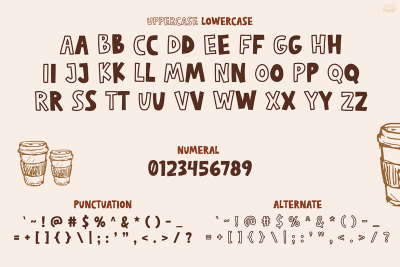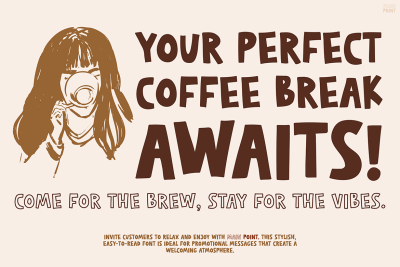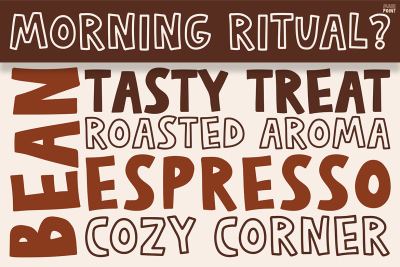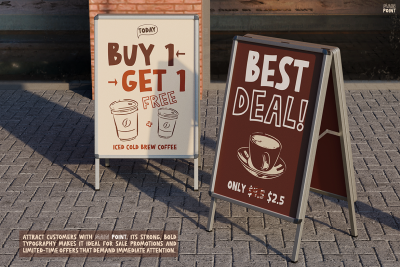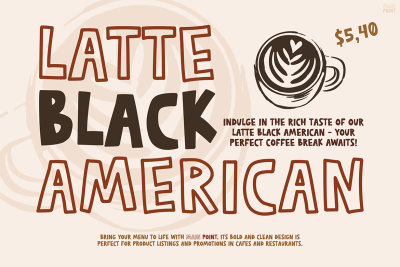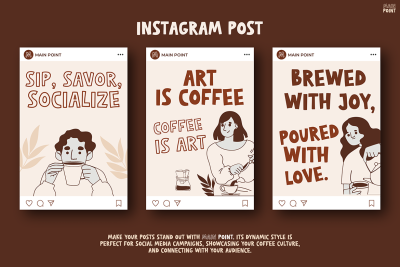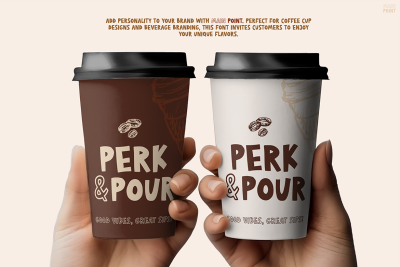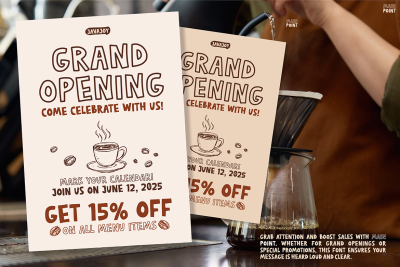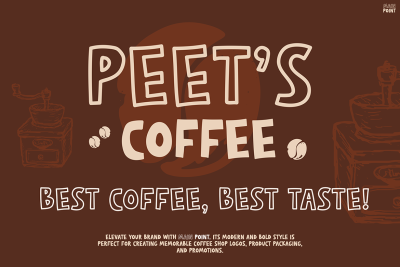
Cute Font Main Point is a playful, bold typeface full of charm. With its hand-drawn style and round shapes, it brings a cozy, inviting look. As a result, itโs perfect for brands that want to feel warm, friendly, and expressive. Whether you’re designing for social media or printed promos, this font grabs attention right away. Moreover, its unique style stands out while remaining easy to read. The variation in line thickness adds movement and personality to every word. Therefore, it turns simple messages into engaging, memorable content. In short, itโs not just a fontโitโs a personality booster for your brand.
Main Point works especially well in modern marketing and social content. For example, as shown in the Instagram and flyer samples, it fits perfectly with coffee themes and lifestyle messaging. Additionally, the bold letters contrast beautifully with light backgrounds, making every post more eye-catching. It is ideal for headlines, announcements, quotes, and promotional materials. Thanks to its soft edges and hand-drawn look, it delivers a relaxed yet confident tone. Consequently, it adds joy to your words while keeping them readable and bold.
Coffee shops and cafรฉs that want to create a cozy, branded atmosphere
Small businesses looking to promote openings or exclusive offers
Social media managers aiming to publish visually pleasing, engaging posts
Graphic designers who need a creative font for food, lifestyle, or artisan themes
Event planners designing warm and friendly invitations, posters, or signage
Because of its unique balance of charm and clarity, Main Point helps your content feel personal and creative. Not only does it catch the eye, but it also helps build strong emotional connections with your audience.